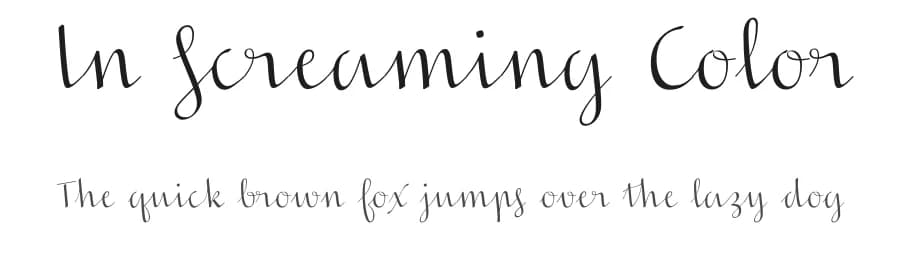
About In Screaming Color Font
In Screaming Color is a cursive calligraphic font which contains sophisticated font features that allow it to be rendered with smooth connections (which the dafont renderer may or may not show). Please donate for commercial use (see the readme in the download).
In Screaming Color Font is a script font that shines as a display or heading face. Pair it with a clean sans-serif or serif font for body text β the contrast creates a clear hierarchy while the two styles stay balanced and easy to read.
In Screaming Color Font